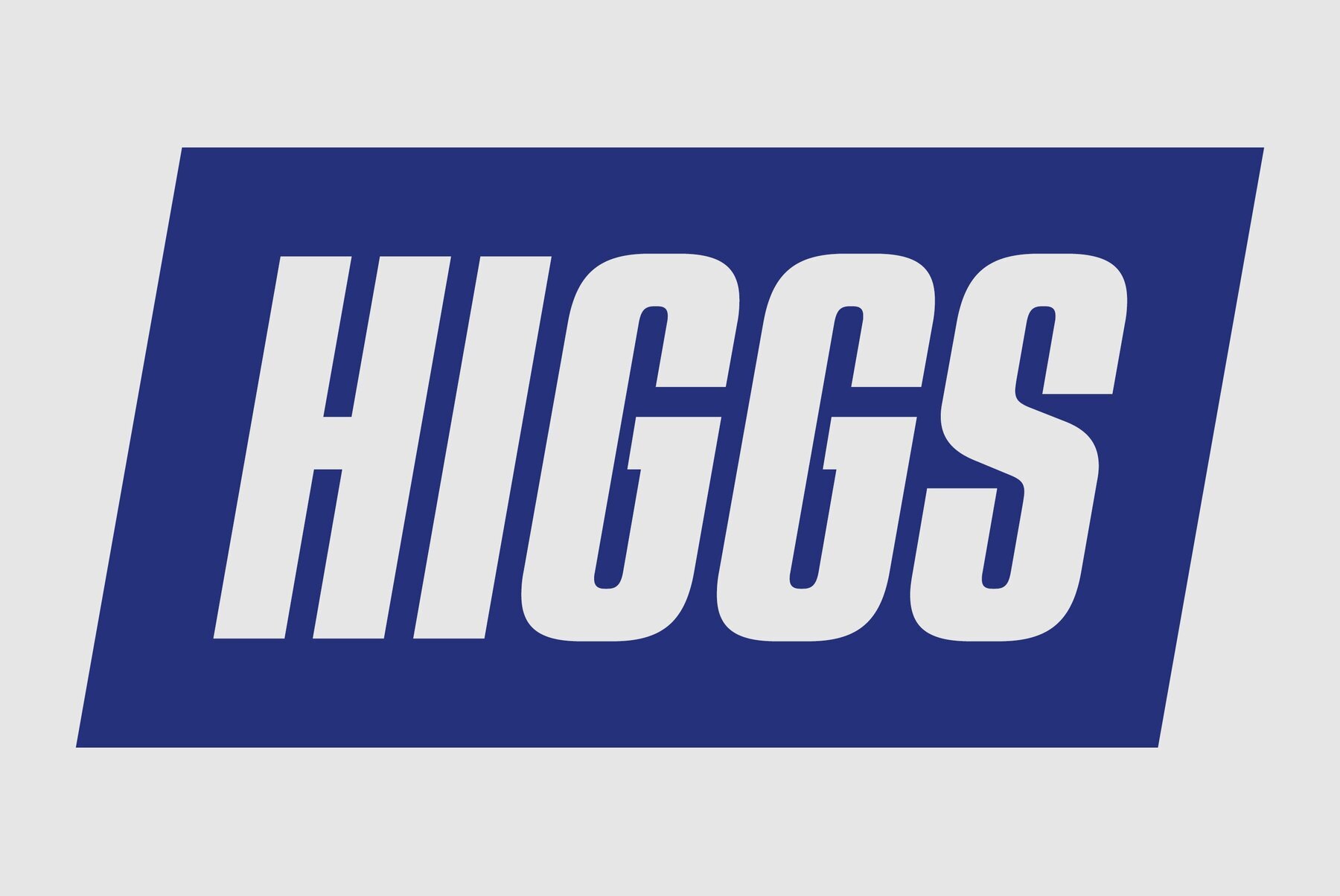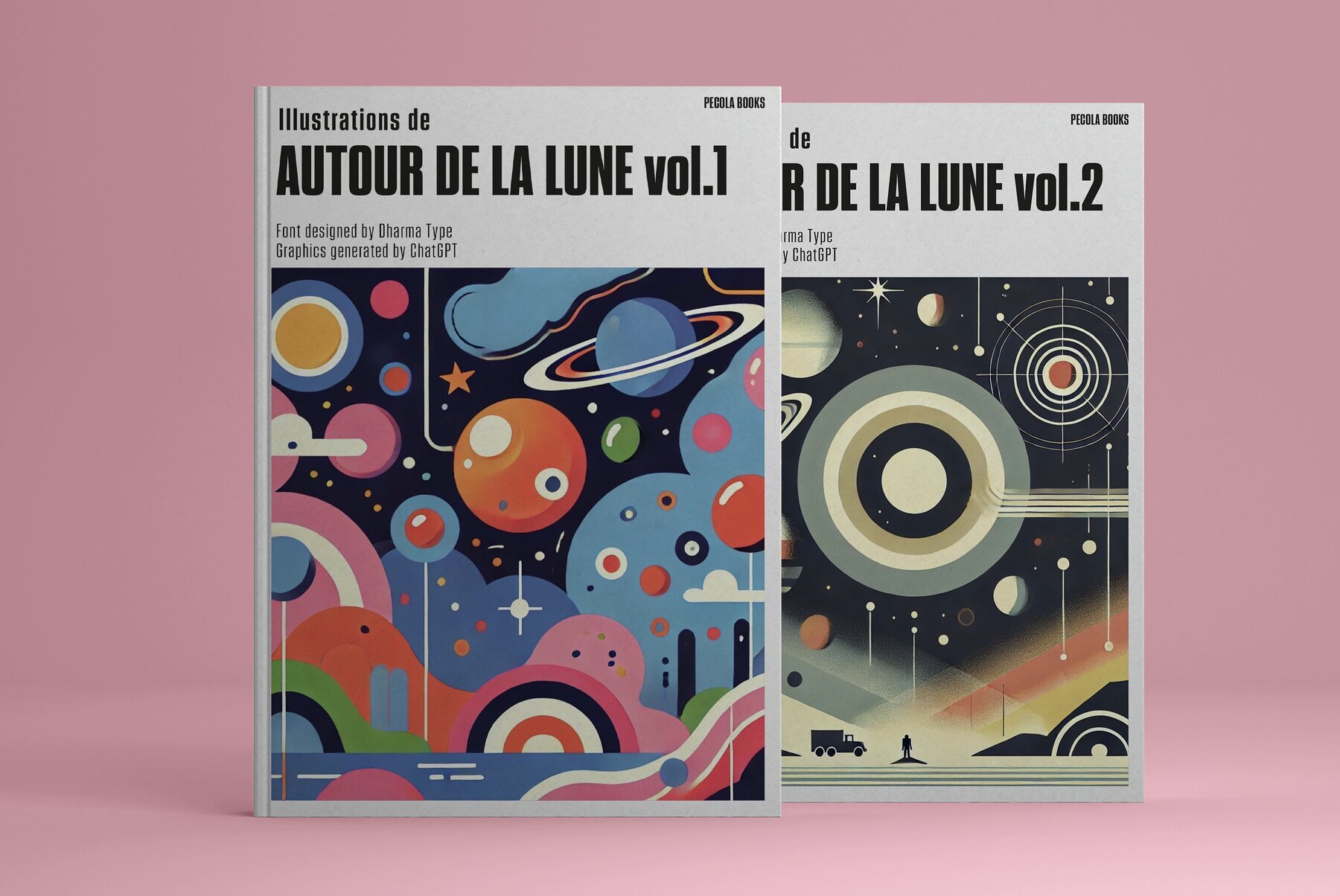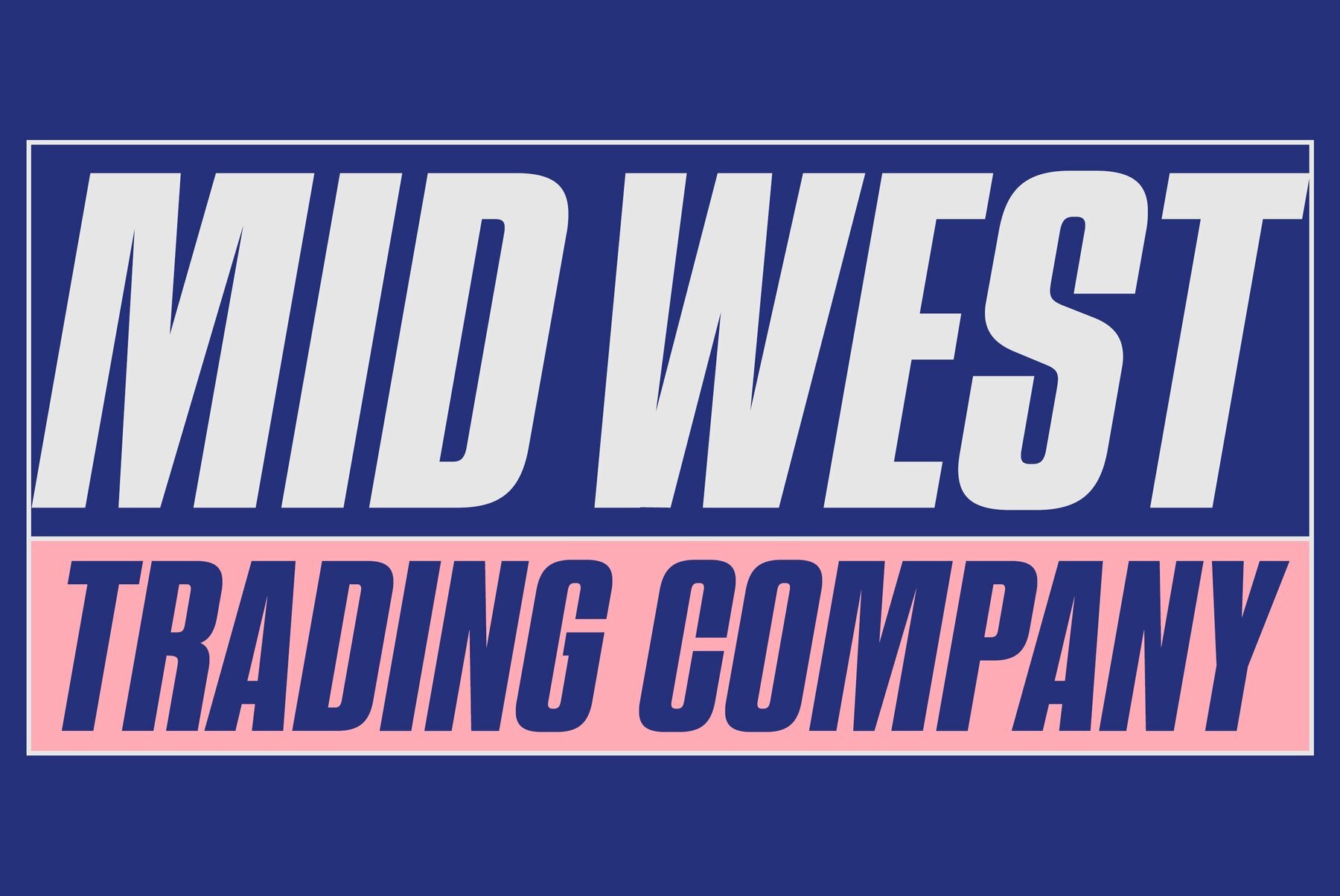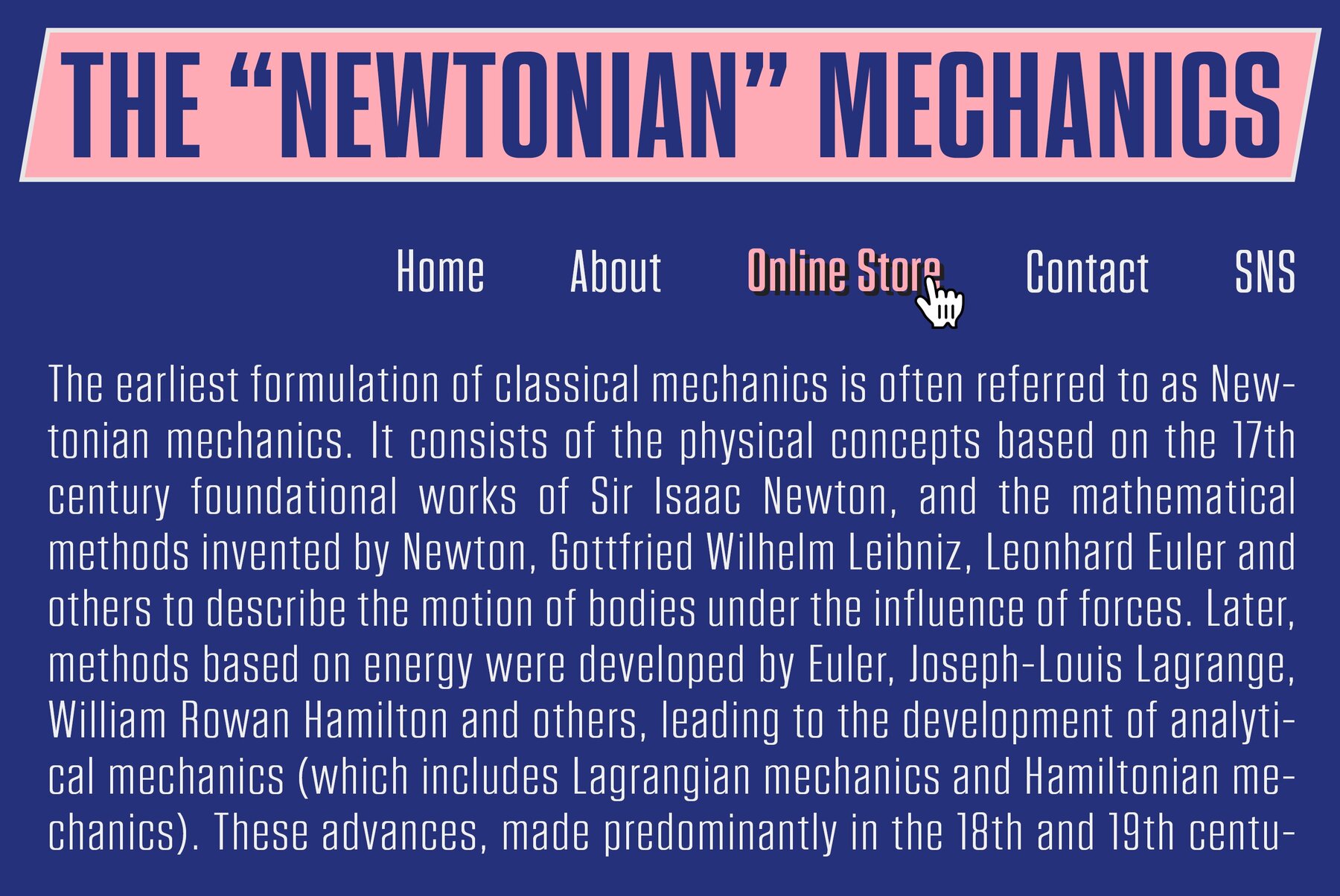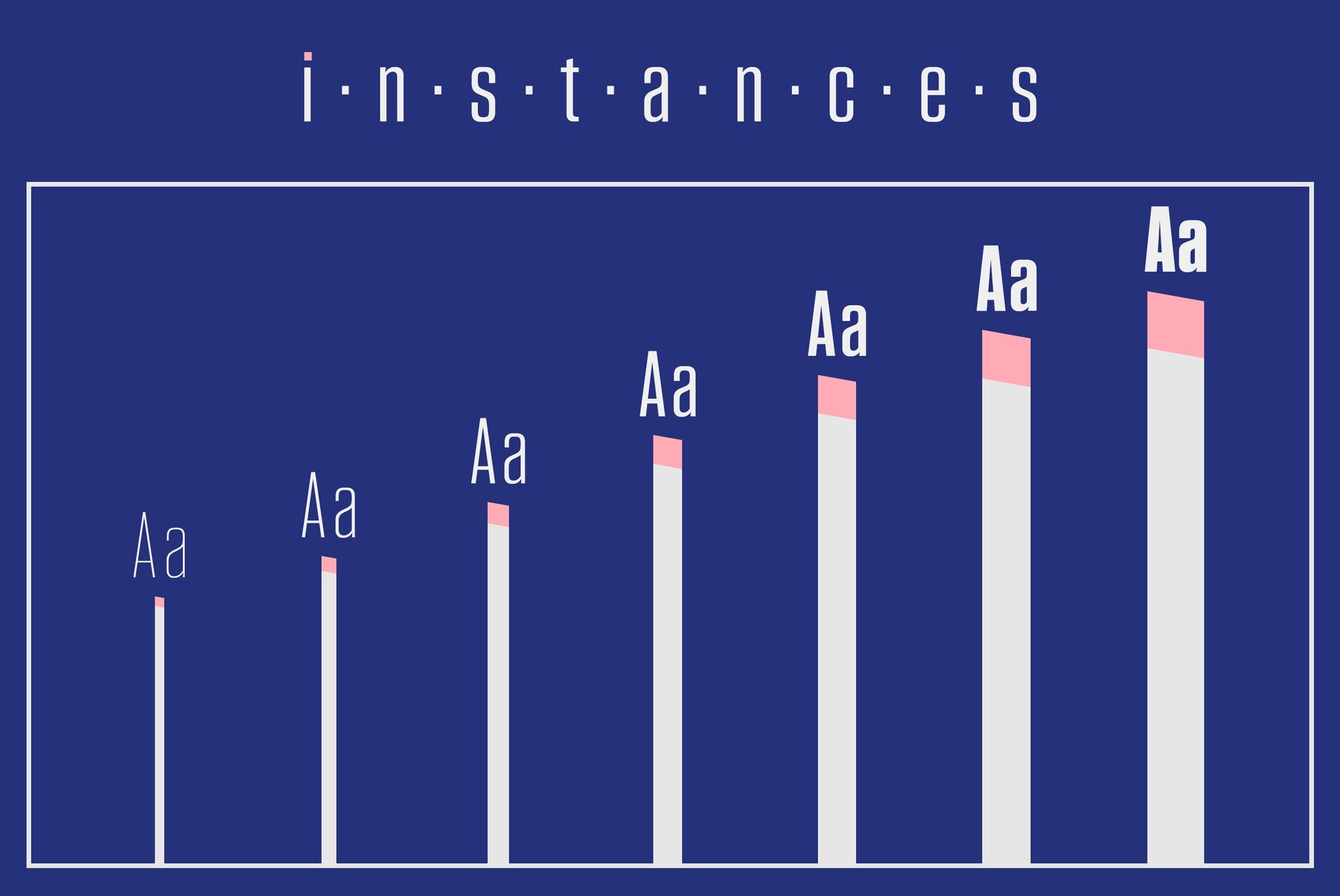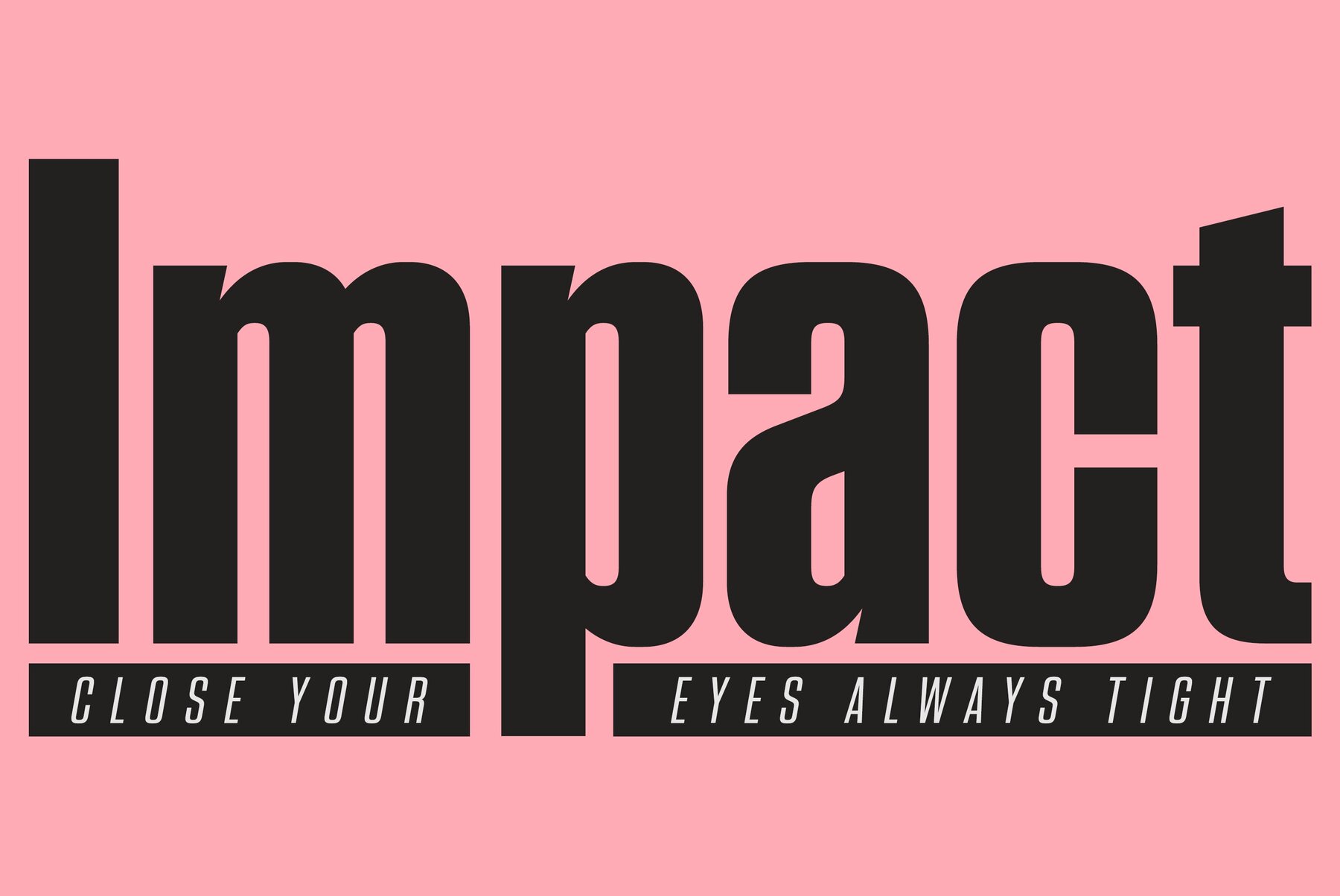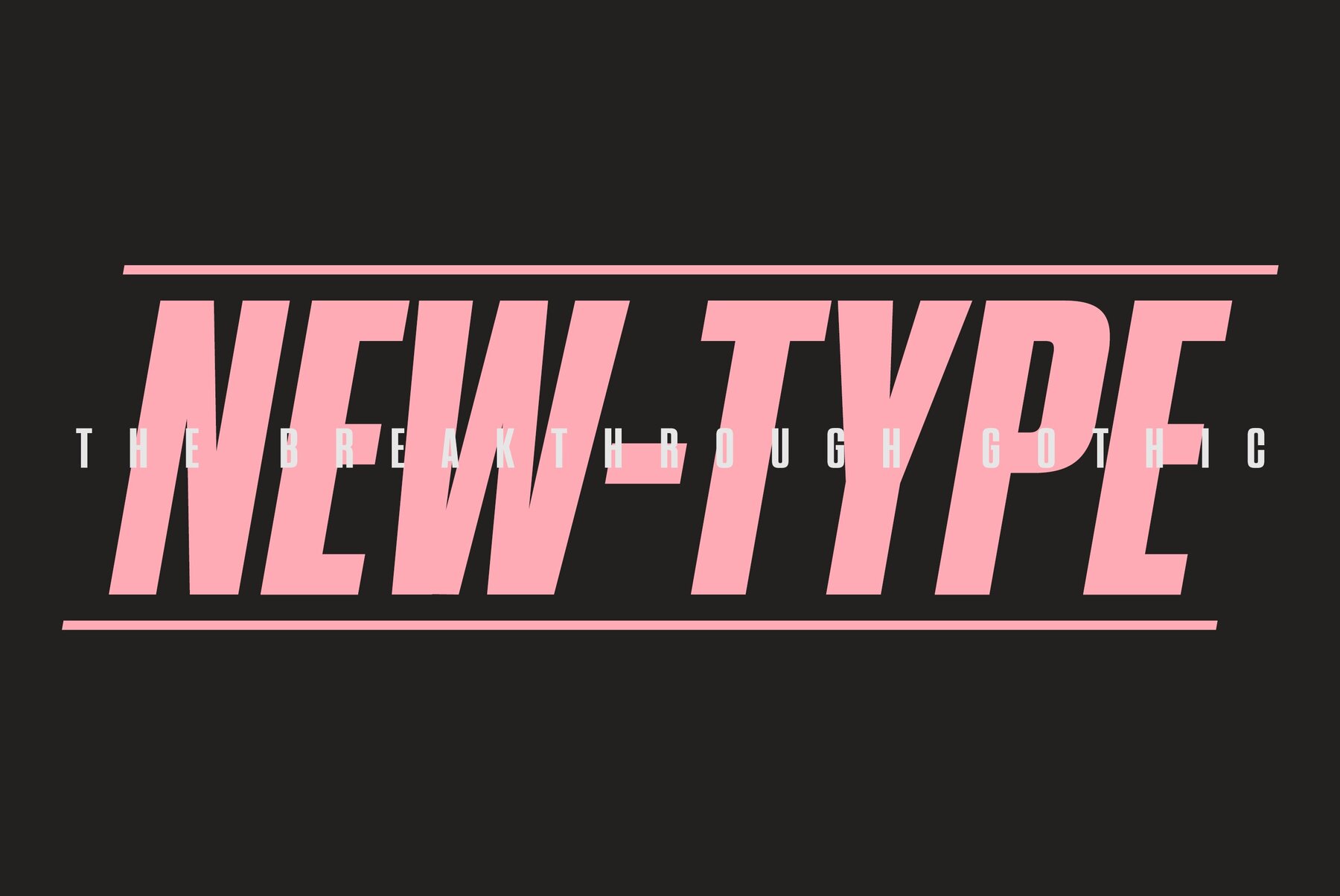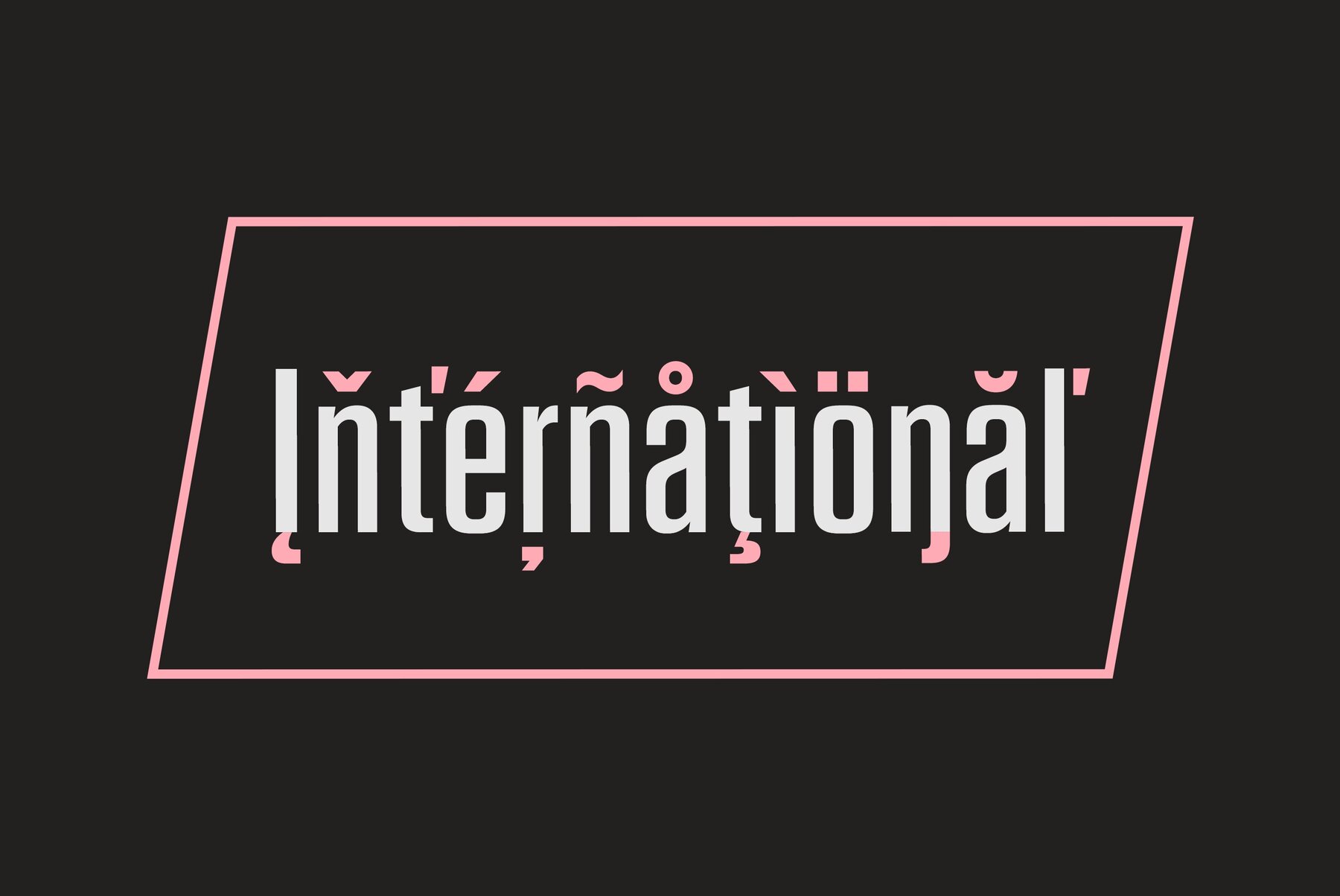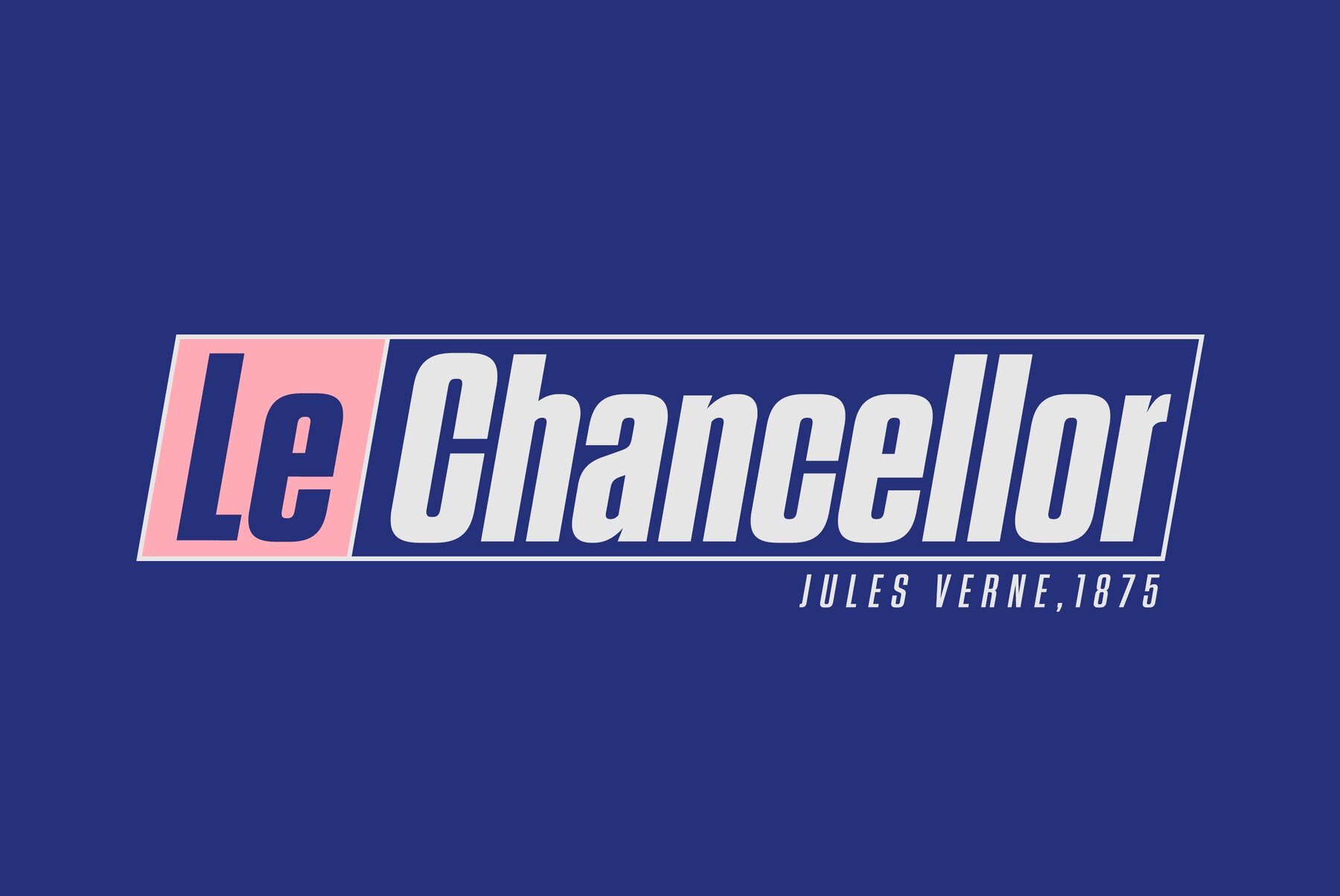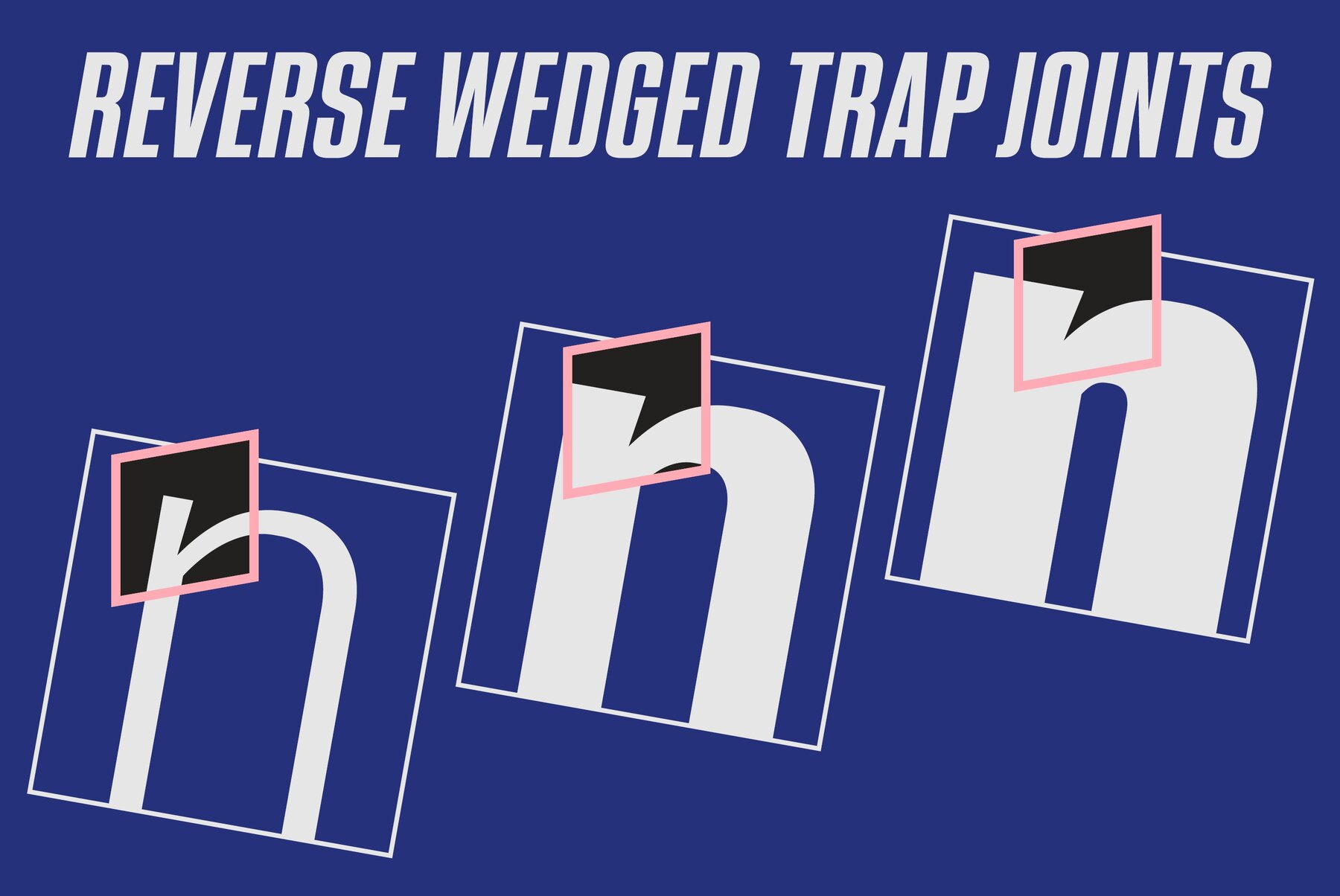
Higgs Font
Immerse yourself in a journey through time and imagination with this uniquely square-shaped and narrow typeface. Inspired by the evocative realm of sci-fi movies and anime, this typeface draws its architectural charm from the wood typefaces prominent in 19th-century posters. One of its most compelling features is the reverse ink trap treatment at the intersections where stems and bowls converge. This innovative design element lends the typeface a sharp, dynamic, and sophisticated appearance, setting it apart from traditional typefaces. The typeface family offers seven weights, each accompanied by an italic version, ensuring versatility in design applications. It also supports an extensive array of Latin-based languages, making it a flexible choice for diverse creative projects.Sci-Fi Meets History: A Typeface with Distinctive Flair